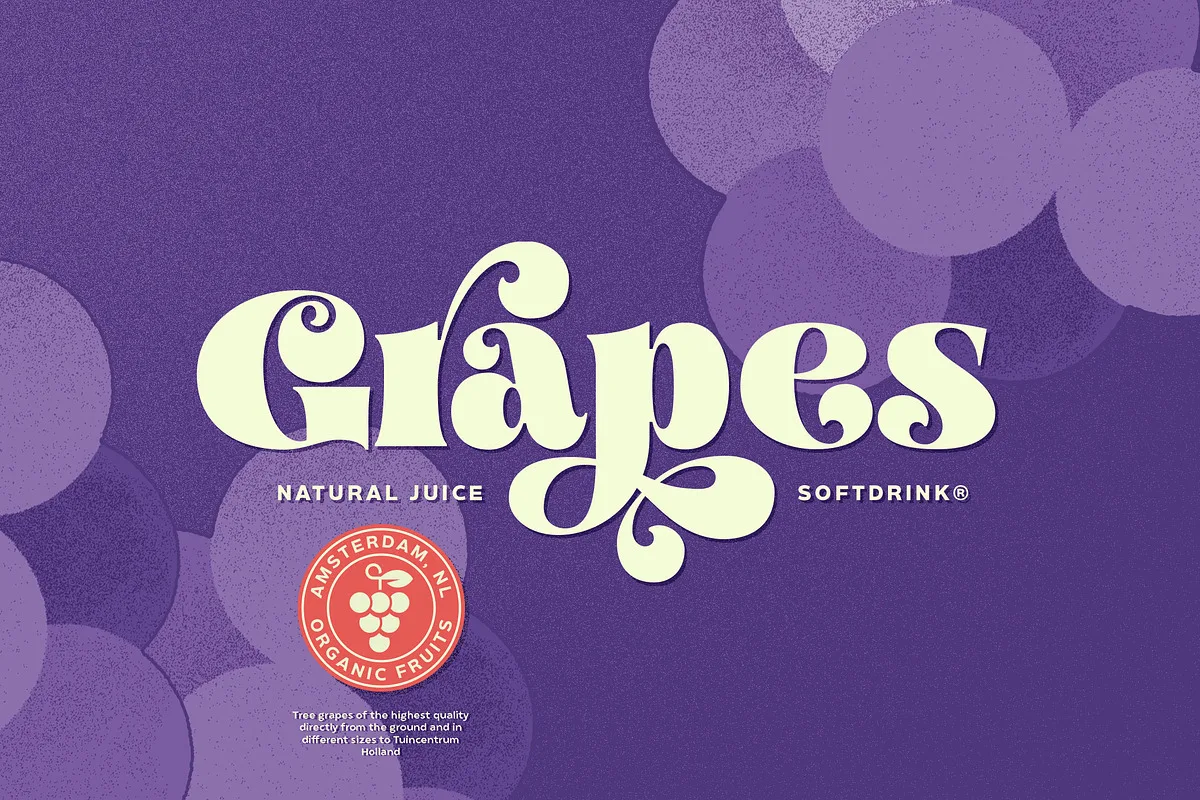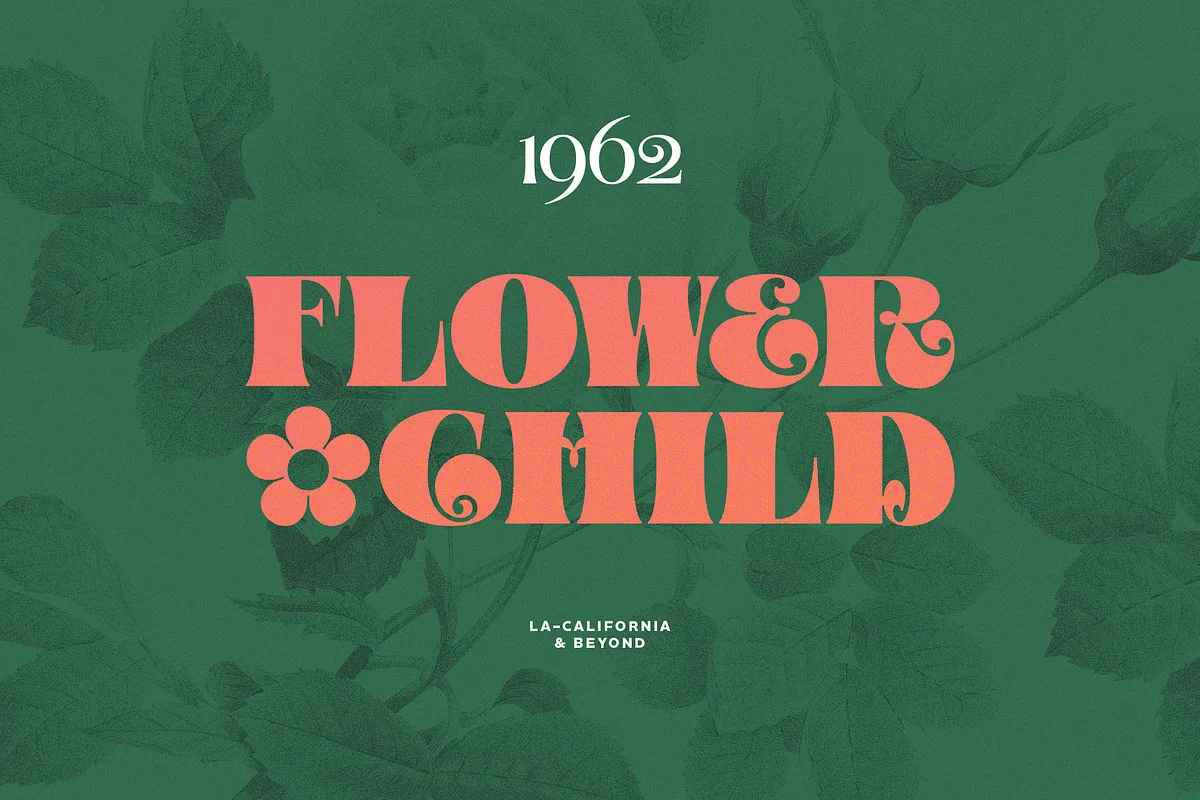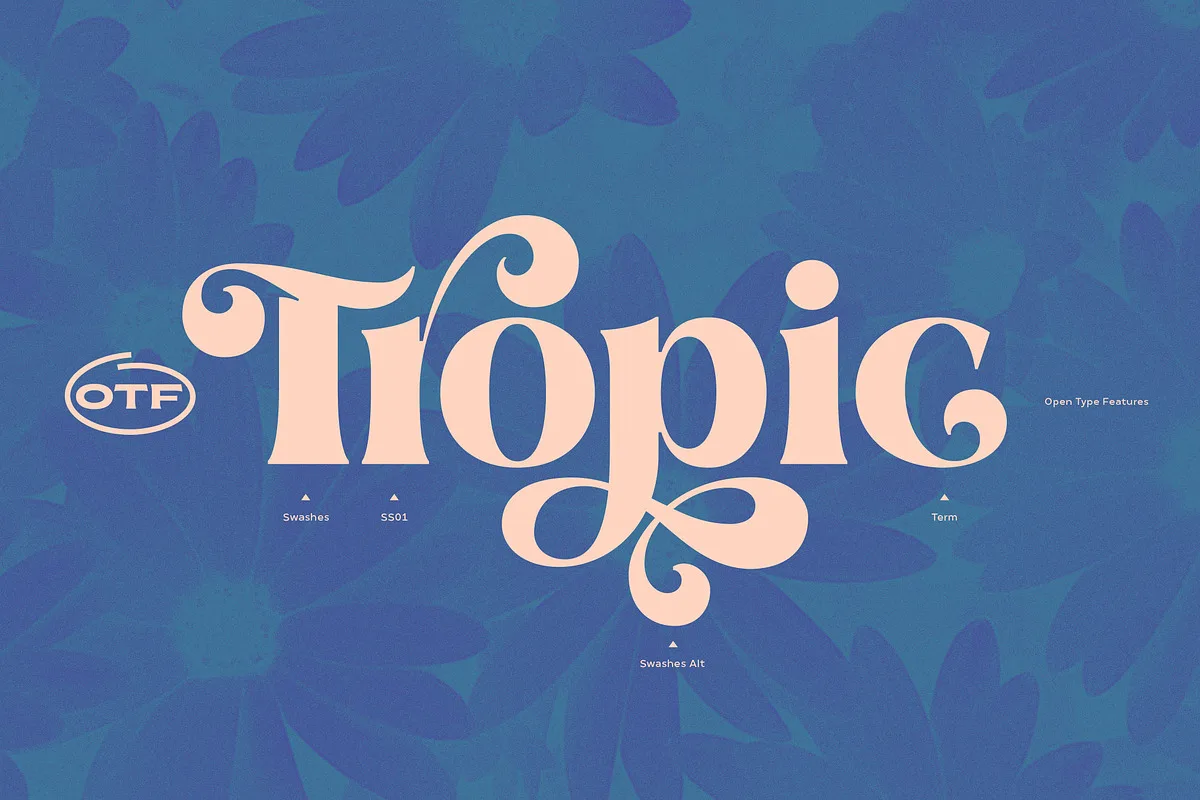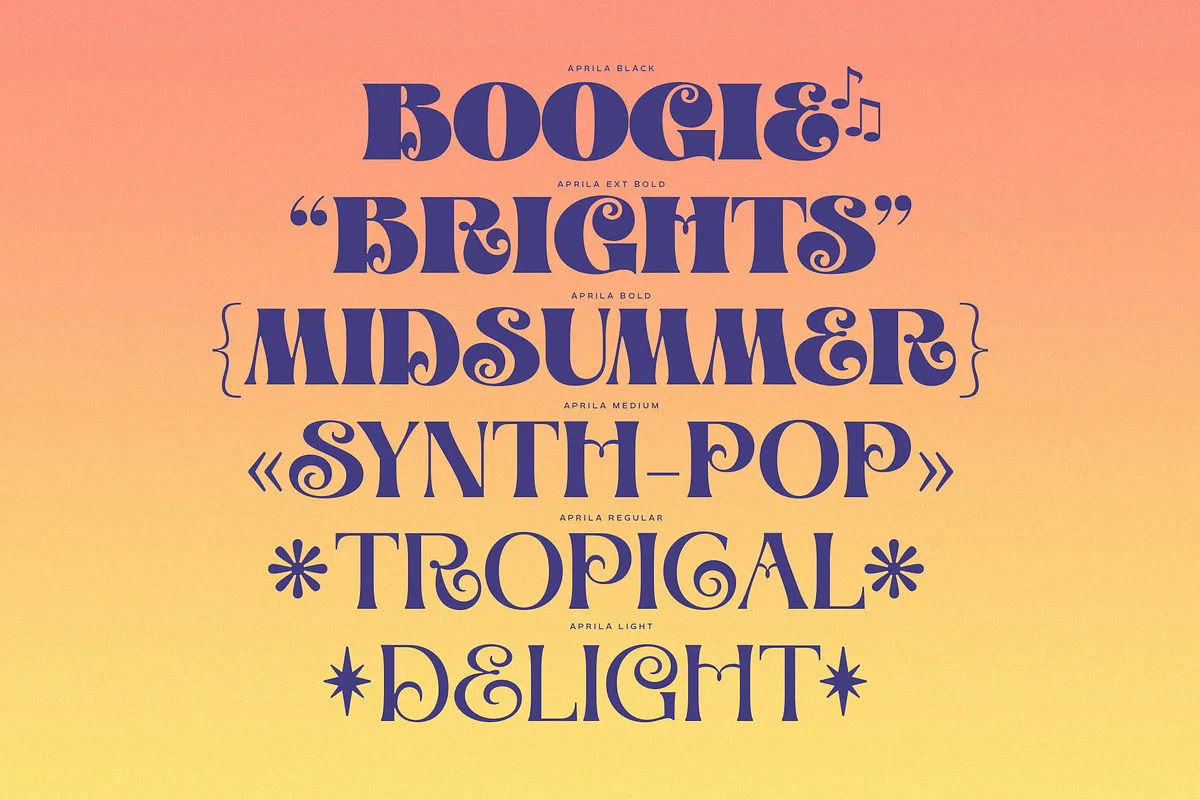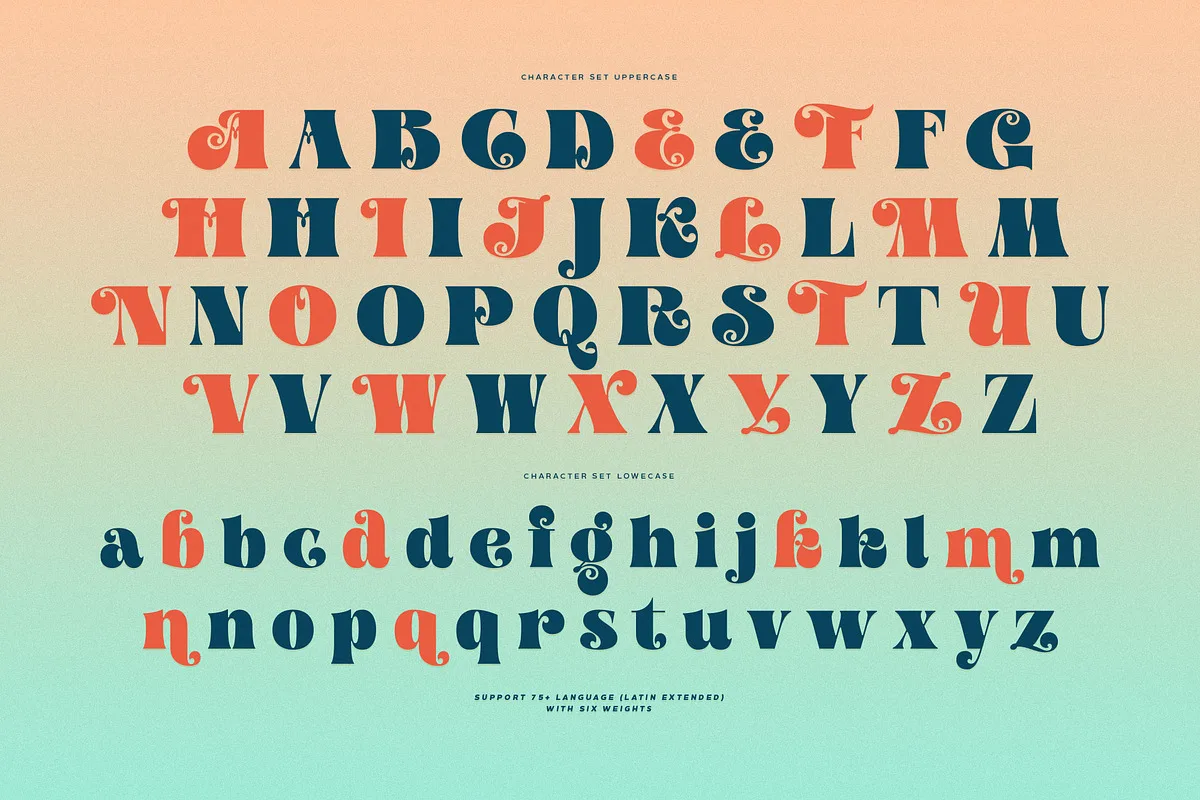
Aprila was inspired by the 1960s Hippies Movement, the psychedelic way of creating their imaginary visions more colorful, bright and extremely difficult to interpret. It is perfect for making your set of invitations, brand, blog posts, greeting cards, labels, photography, quotes, posters, wall art, etc.